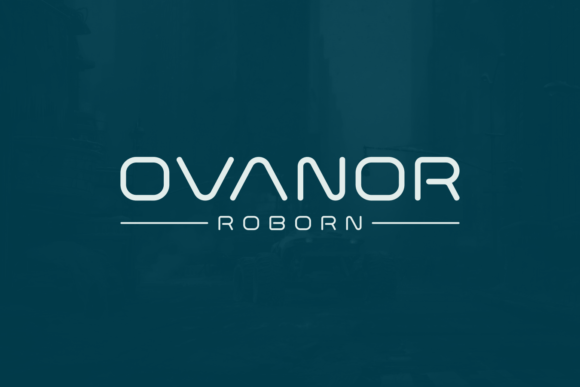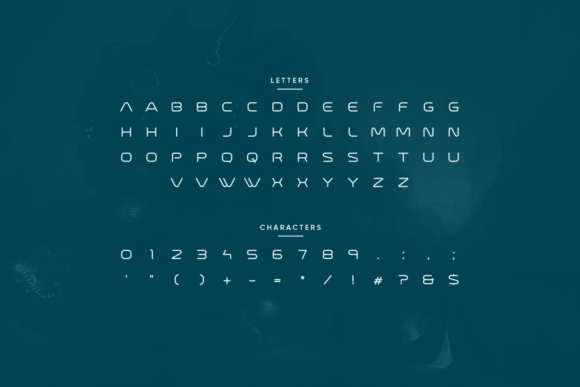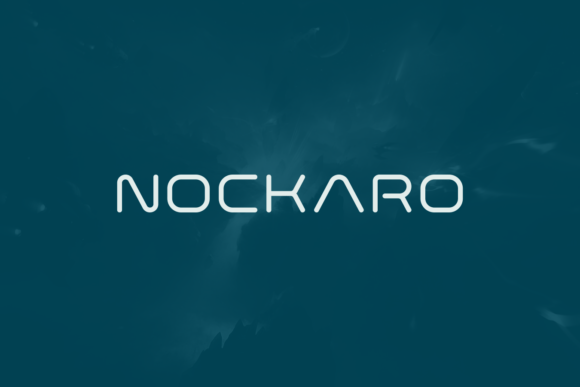
Introduction to Rovanro Font Font
Fonts play a crucial role in design, and the Rovanro Font font is a typeface that brings both character and versatility to any project. Whether you’re working on a branding project, a website, or a print design, the Rovanro Font font offers a unique style that can elevate your work.
Rovanro is a modern, elegant and futuristic looking font, with a thinner and contemporary version.
This font would be ideal for writing web designs, business cards, or anything else that requires a unique touch in a sleek, modern format With sophisticated concepts and very elegant shapes that will look modern on future technological designs, donβt hesitate to have this font, grab it and use your creativity.
The Rovanro Font font is more than just a typeface β it’s a design tool that helps you communicate your message with style and clarity. Its unique character set and versatile design make it suitable for a wide range of applications, from elegant invitations to bold headlines.
With its carefully crafted letterforms and balanced proportions, the Rovanro Font font ensures readability and visual appeal across all mediums.
The Rovanro Font font stands out with its unique design, exceptional readability, and versatility across various design applications.